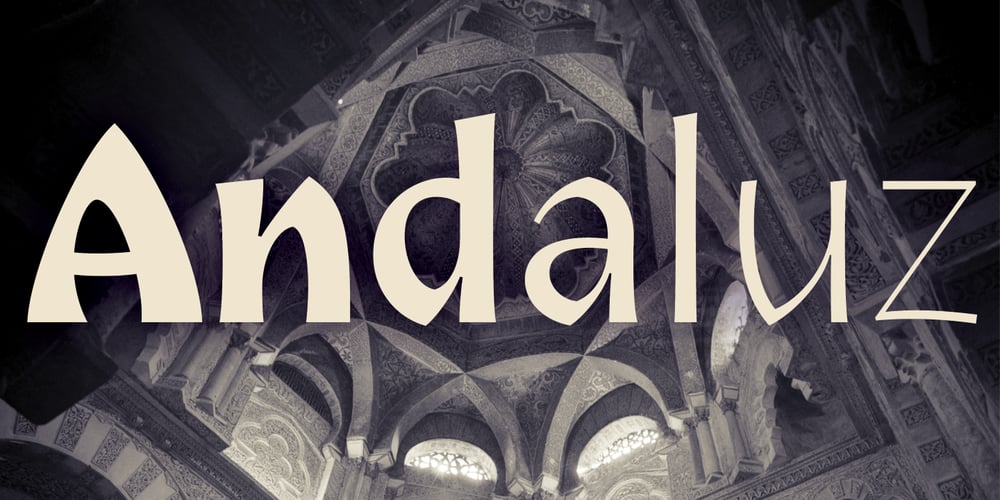
Andaluz Font Family was designed by František Štorm and published by Storm Type Foundry. Andaluz contains 8 styles and family package options. The land of beauteous angels, Andalucia, connects different cultures with a curved arch. Almond trees bloom there in February, and orange trees grow in the heavenly courtyards of Gothic churches. A Catholic cathedral stands in a mosque, Moorish fountains gush with water, and ornate arcades are reflected in the mirrors of the Alhambra pools. Fishing villages have long been busy with tourism, but there are remote pubs where only locals go for fresh fish. Beer is served in wine glasses, and with each one you get a piece of cheese, shrimp, or a few slices of specially smoked ham, sitting on the bar counter. Here, in the off-season, it is possible to gaze into the distance towards the African shores and sketch watercolors for the diary completely undisturbed.